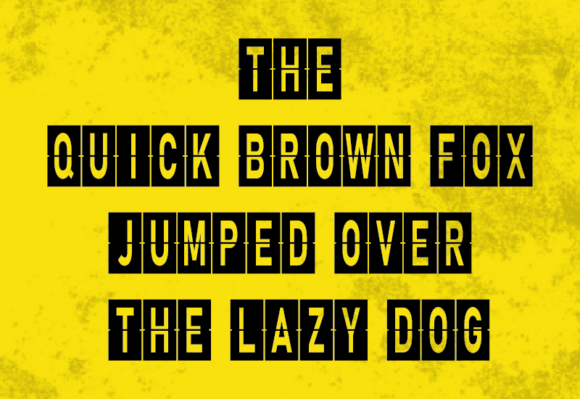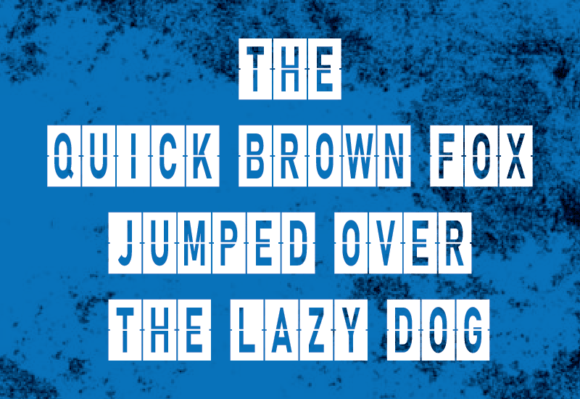
Introducing Countdown Font: Elevate Your Designs with a Retro Twist
Are you tired of using the same old fonts in your designs? Look no further! The Countdown Font is here to revolutionize your creative projects with its cool, flip, counter, and retro-style charm. This font is designed to bring each of your master ideas to the highest level, making it a must-have for designers and crafters alike.
What is Countdown Font?
The Countdown Font is a unique and stylish font that is perfect for adding a touch of nostalgia to your designs. Its retro-style aesthetic is reminiscent of old-school counters and timers, making it ideal for projects that require a vintage or distressed look. The font’s flip counter style adds a fun and dynamic element, making it perfect for designs that need to grab attention.
Key Features of Countdown Font
- Retro-style aesthetic: The Countdown Font has a distinctive retro-style look that is sure to add a touch of nostalgia to your designs.
- Cool and flip counter style: The font’s flip counter style adds a fun and dynamic element, making it perfect for designs that need to grab attention.
- High versatility: The Countdown Font can be used in a wide range of creative projects, from posters and flyers to social media graphics and website headers.
- Easily customizable: The font is easy to customize, allowing you to adjust the size, color, and style to fit your design needs.
How to Use Countdown Font in Your Designs
The Countdown Font can be used in a variety of creative projects, including:
- Posters and flyers: Add a touch of nostalgia to your posters and flyers with the Countdown Font’s retro-style aesthetic.
- Social media graphics: Use the Countdown Font to create eye-catching social media graphics that are sure to grab attention.
- Website headers: Add a unique and stylish touch to your website headers with the Countdown Font.
- Logos and branding: Use the Countdown Font to create a distinctive and memorable logo or branding element.
Benefits of Using Countdown Font
Using the Countdown Font in your designs can have a number of benefits, including:
- Increased creativity: The Countdown Font’s unique and stylish design can help to inspire creativity and bring new ideas to your designs.
- Improved brand recognition: The font’s distinctive retro-style aesthetic can help to create a memorable and recognizable brand identity.
- Enhanced visual appeal: The Countdown Font’s cool and flip counter style can add a dynamic and eye-catching element to your designs.
In conclusion, the Countdown Font is a unique and stylish font that is perfect for designers and crafters looking to add a touch of nostalgia and retro charm to their designs. With its cool and flip counter style, high versatility, and easily customizable design, the Countdown Font is a must-have for any creative project. So why wait? Download the Countdown Font today and elevate your designs to the highest level!